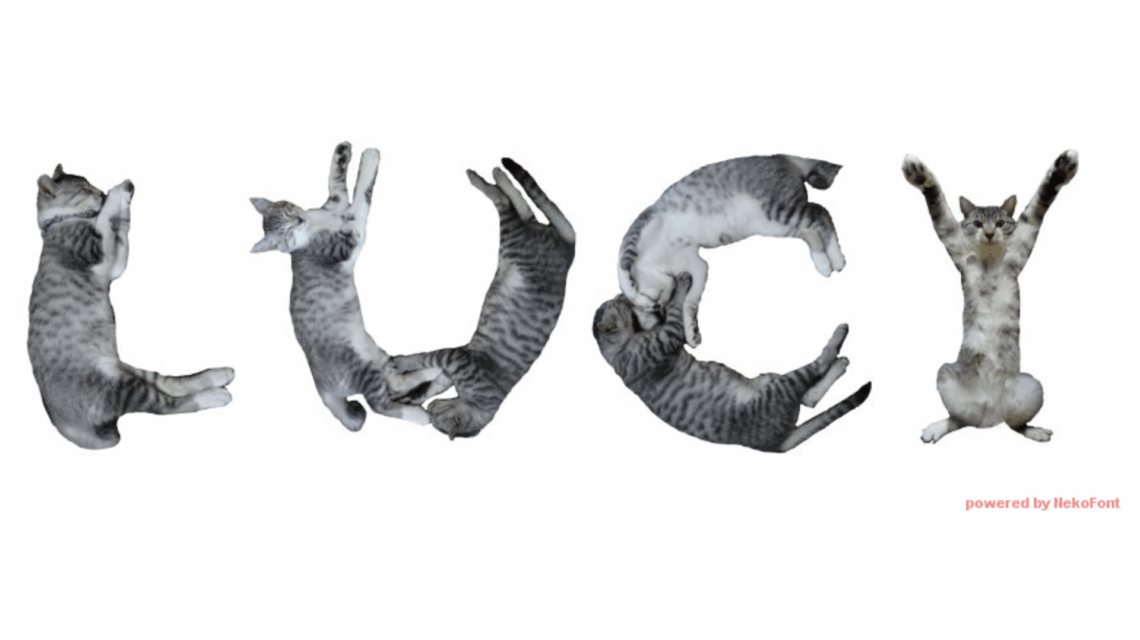
Fanciful image: photos of tabby cats in various positions spelling out "LUCY"
Neko Font, in honor of Lucy the Cat, 1991(?) to 2008 – (TW: pet death, grief)
Seventeen years ago today, I lost my beautiful sweet Lucy Cat.
Lucy was skittish and terrified when I first got her, hiding under the bed and only emerging at night to eat. I decided to take on gentling her as a project, but that soon turned into just loving her up. She eventually graduated to merely prickly, but with a trickle, then a flood of love returned to me. I had her for ten years, from 1998 to 2008, and by about half that time, she had softened enough that she would play with other people, and even let them pet her.
She was healthy for many years, but eventually developed diabetes and then kidney disease. I knew things were getting worse and worse, and tried to ready myself emotionally for having her put to sleep, but I was absolutely unprepared for the depth of grief I felt when she had passed. You somehow get through the day it happens, and then you wake up the next day and they’re still gone? It remains the worst pain I’ve ever felt. These days the pain has eased somewhat, but I still think about her every day.
In Lucy’s honor, therefore, I have the distinct pleasure of presenting Neko Font, a DIY word creation site that takes any letters you type in and converts them to kitty-shaped furriness! It was created in Japan (“neko” is the Japanese word for cat) but I have the English-language site selected; other languages are available via the menu at the top.
Enjoy! And raise a glass for Lucy.
Fanciful image: photos of tabby cats in various positions spelling out "LUCY"
Starting tomorrow, September 29, the time since she died (2008–2025) will be seven years longer than the time I had with her (1998–2008).  This makes me so sad.